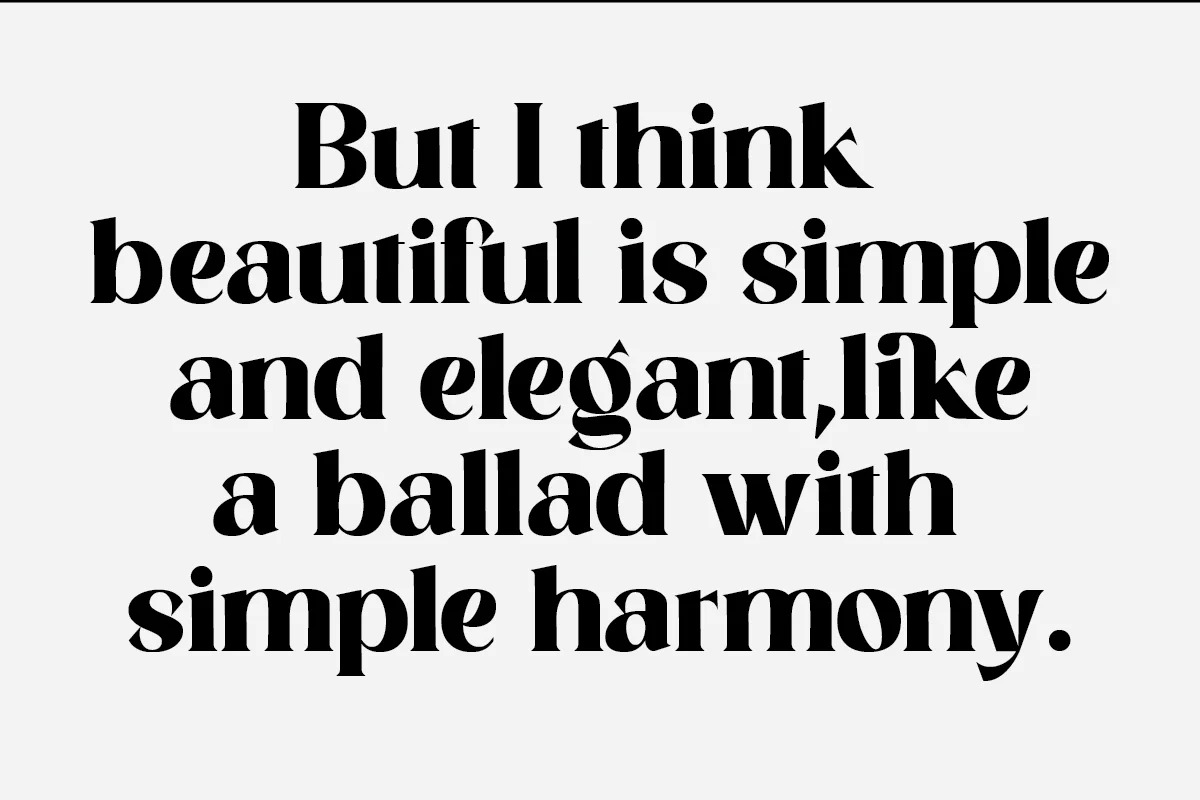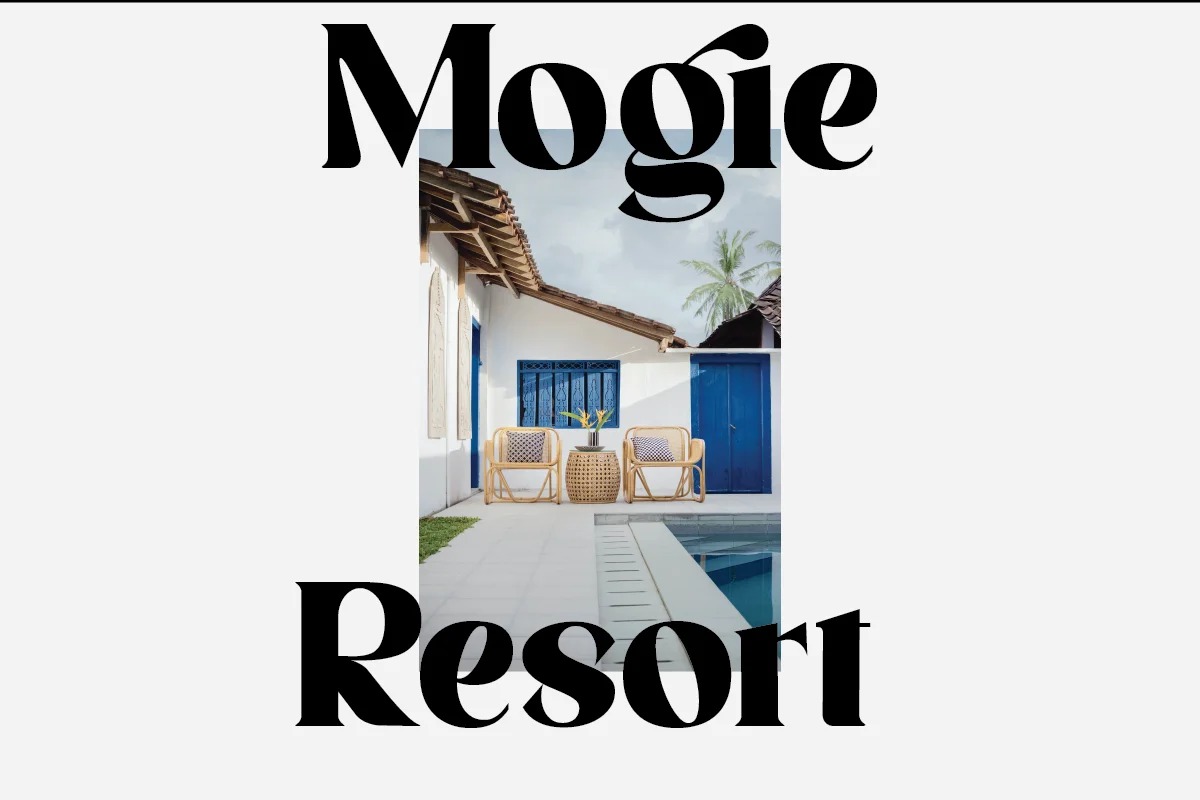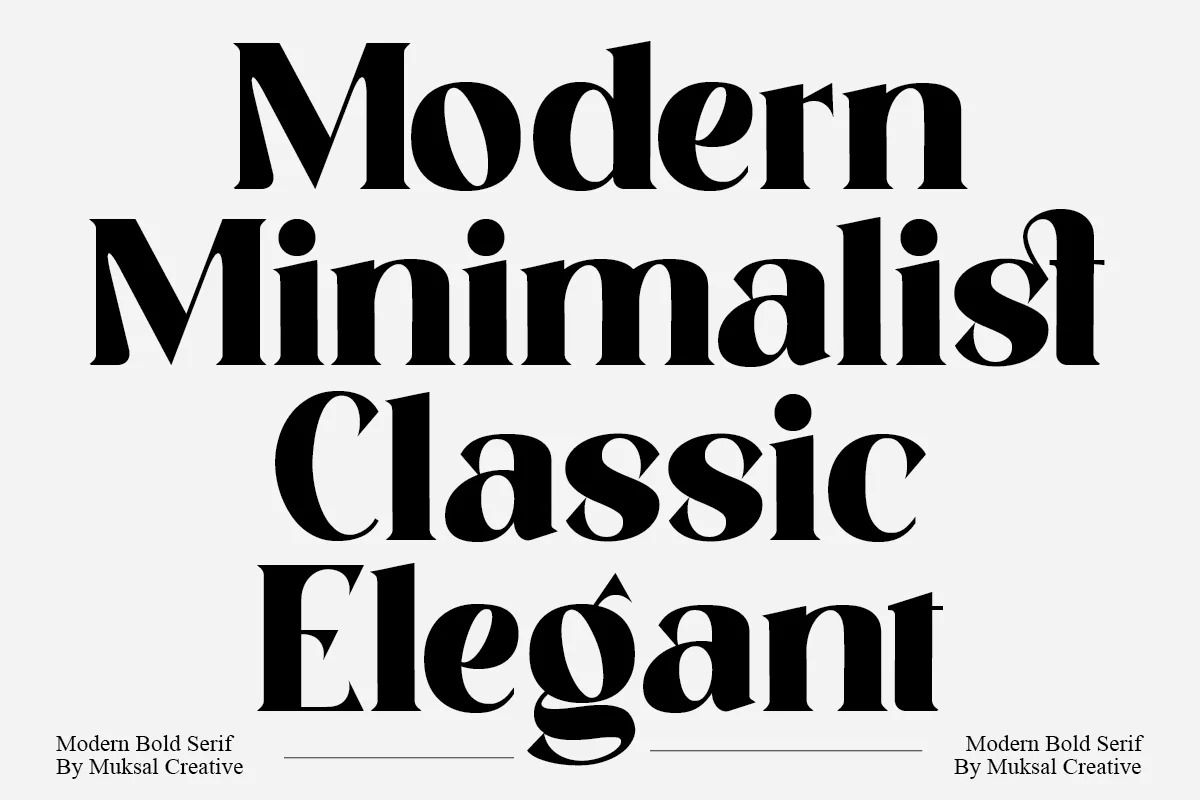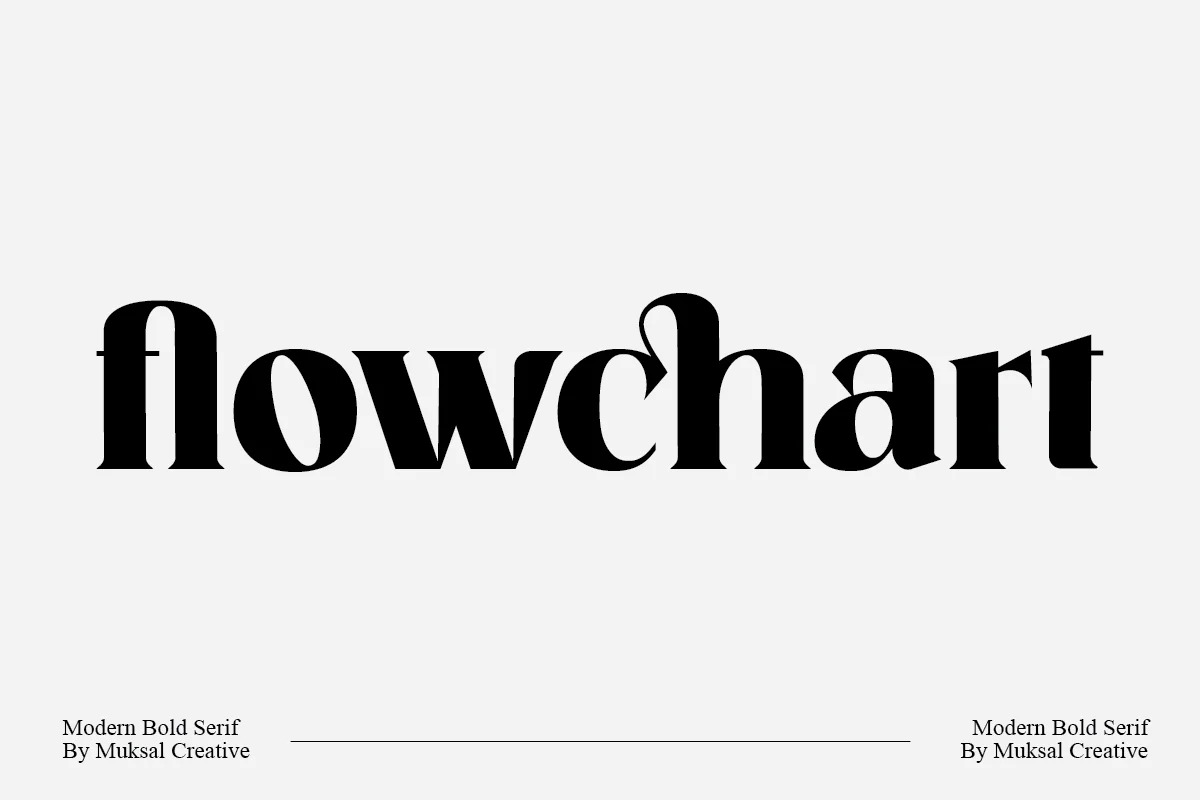
Flowchart Font
Flowchart Serif Font is a bold vintage style serif font beautiful and soft, fonts in a contemporary style that can make your design projects look modern, elegant and luxurious. Perfect for editorial projects, Logo design, Clothing Branding, product packaging, magazine headers, or simply as a stylish text overlay to any background image.